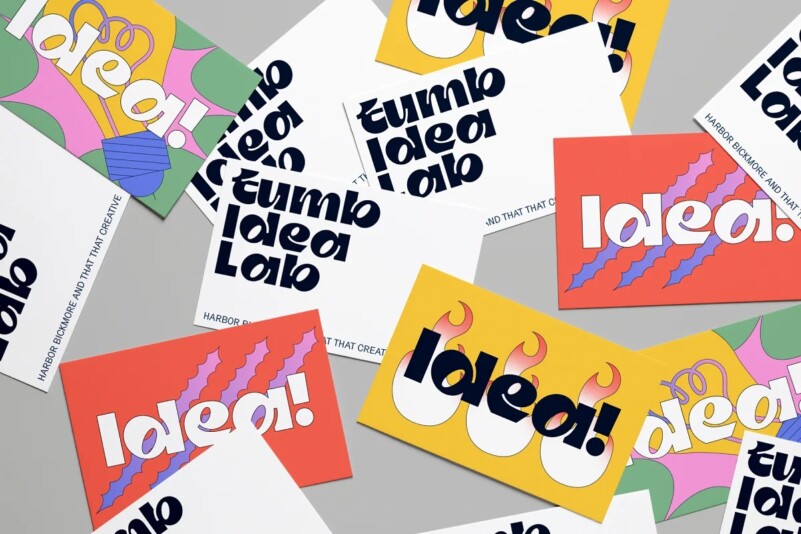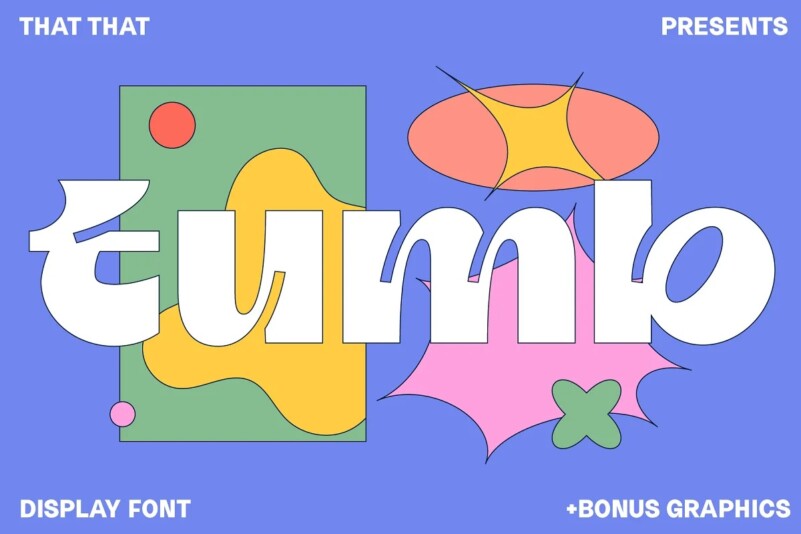
Tumb Font
Includes Bonus Graphic Pack Tumb is a modern quirky display sans serif type that is super bold and perfect for headlines. it is playful and fun. It is perfect for posters, Instagram, magazines, print, branding, logos , and whatever you can imagine. That That is super proud of this one.